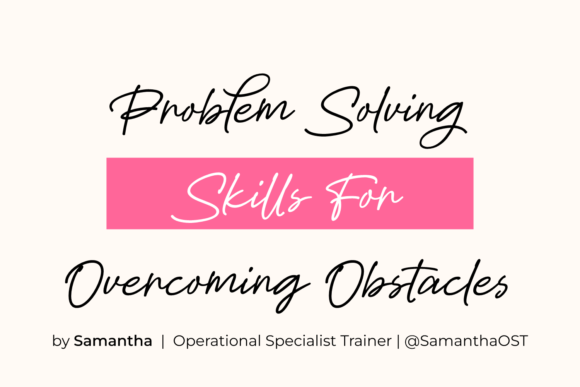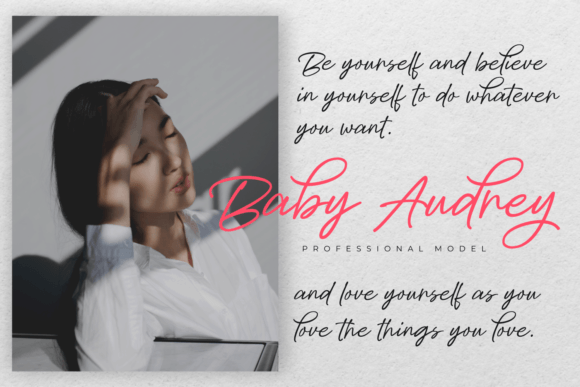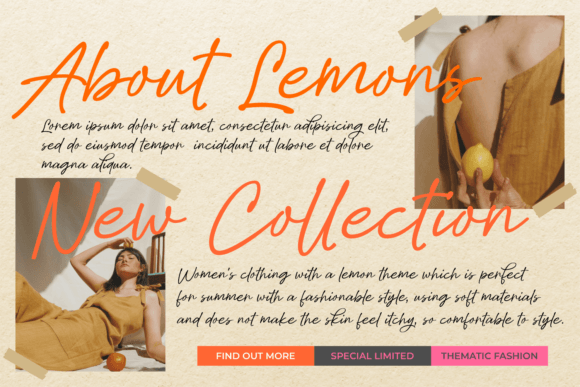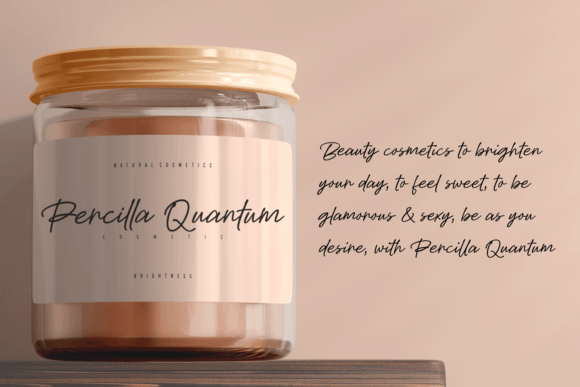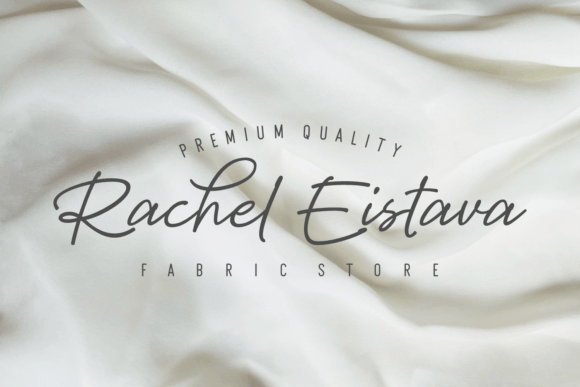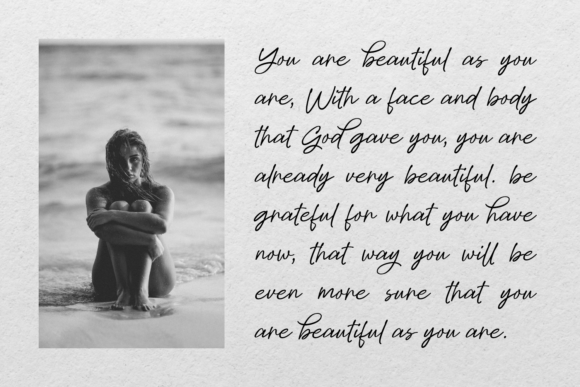
Solution of Difficulty Font
About Solution of Difficulty Font
The “Difficulty” font offers a dazzling script style that stands out with its intricate detailing and neat craftsmanship. It serves as a valuable addition to your font collection, capable of elevating the aesthetics of any creative project, regardless of the subject matter.
What sets this font apart is its PUA encoding, which grants you convenient access to a wide range of glyphs and swashes. This feature makes it effortless to incorporate unique and decorative elements into your text, enhancing the overall visual appeal of your design.
Whether you’re working on a formal document, a playful poster, or any other creative endeavor, the “Difficulty” font offers versatility and elegance. Its attention to detail and carefully designed characters ensure that your text is not just a means of communication but also a visually striking element of your project.
Incorporate “Difficulty” into your font library, and you’ll discover its potential to enhance the impact and sophistication of your designs. With its dazzling script and accessibility to a rich set of glyphs and swashes, this font is a valuable asset for both amateur and professional designers seeking to make a lasting impression. Elevate your typography and let “Difficulty” transform your creations into works of art.